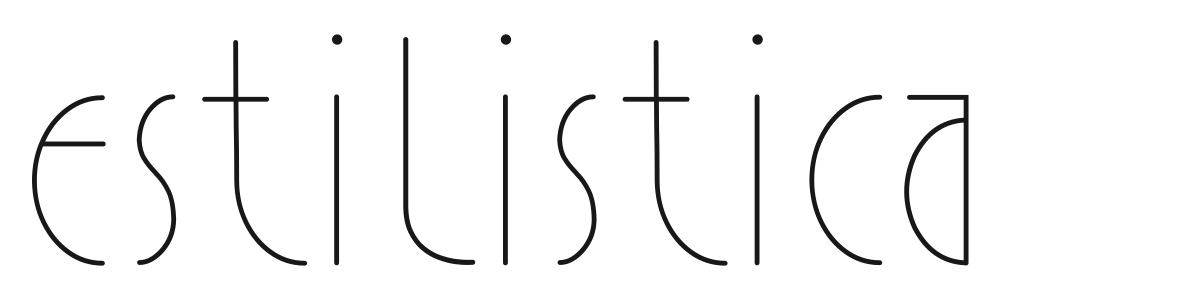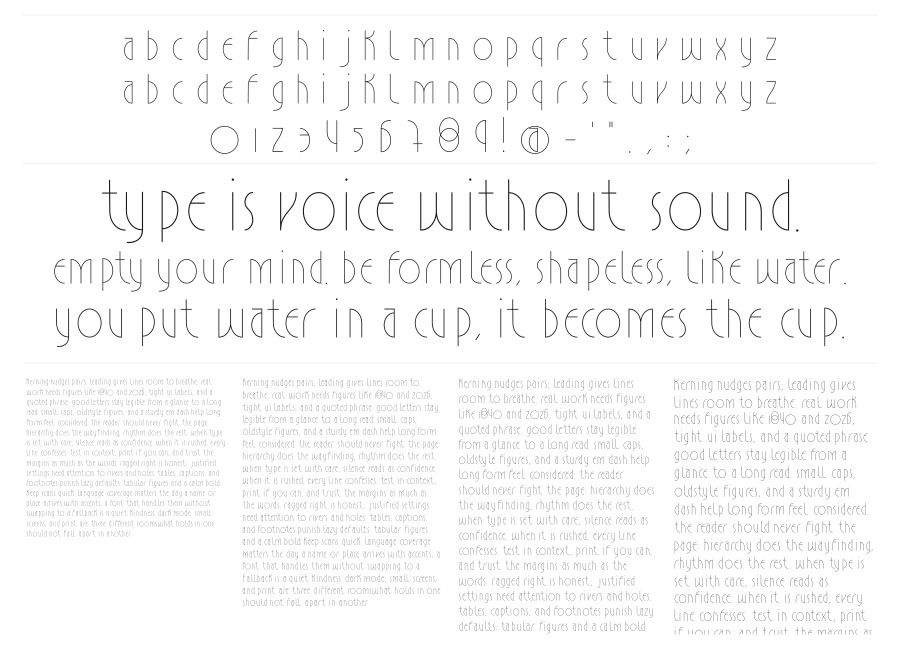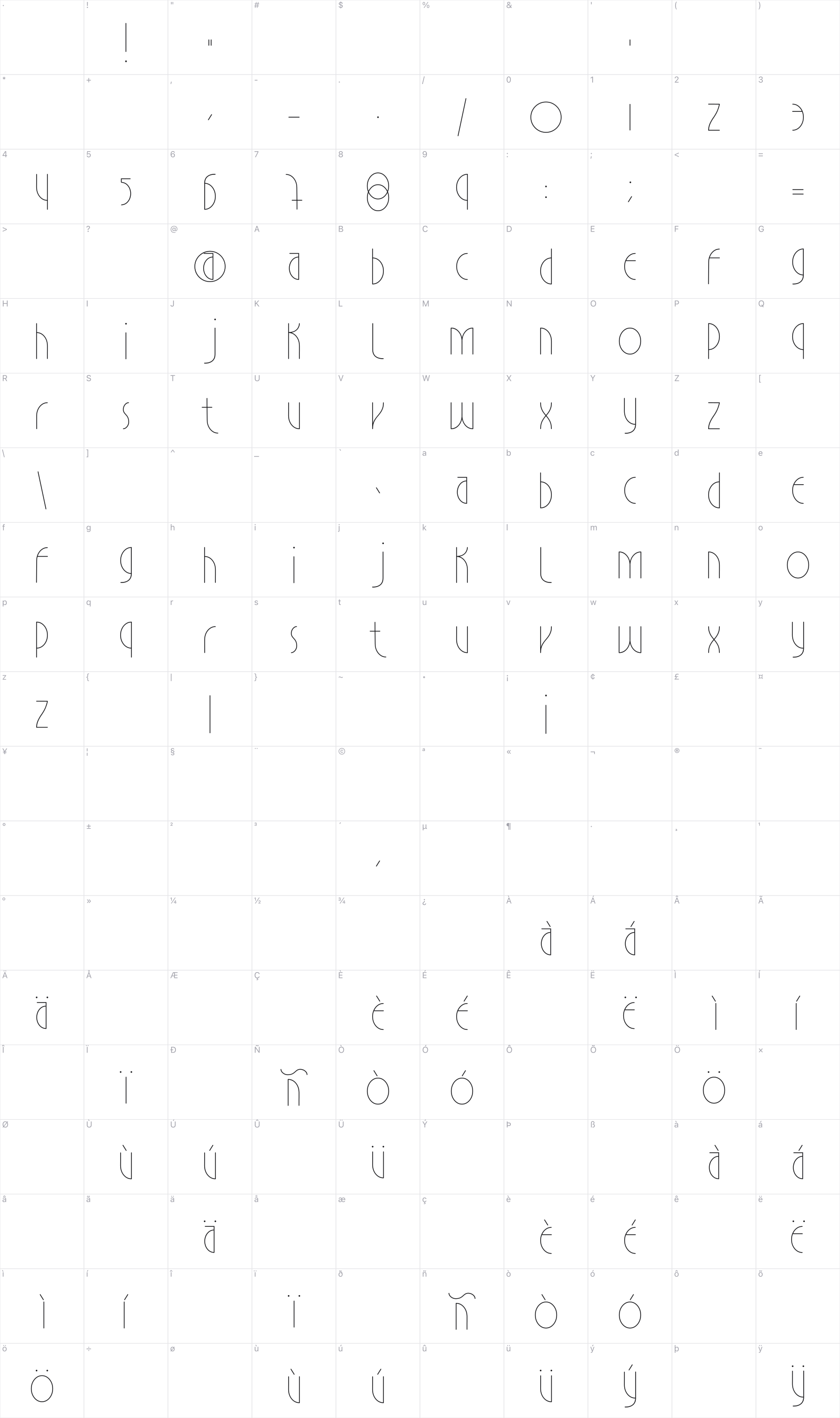
Estilistica
Estilistica is a hairline geometric sans with an almost skeletal thinness and perfectly circular letter forms. The ultra-light weight and generous open apertures give it a floating, ethereal quality that commands attention at large sizes. It sits comfortably in fashion, beauty, and luxury branding where restraint is the point.